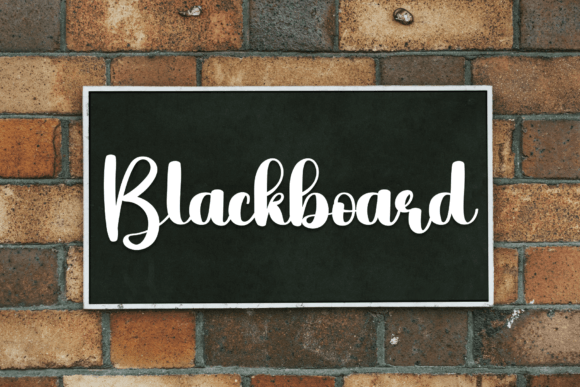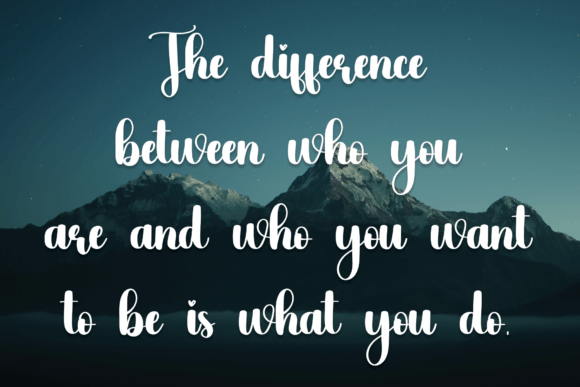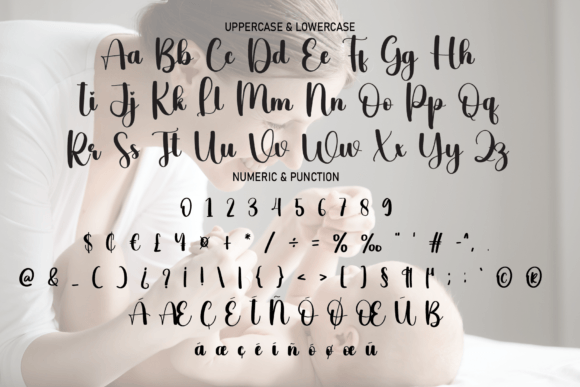
Introduction to Nanny Font
Nanny is a cool and casual handwritten font.
Whether you’re using it for crafts, digital design, presentations, or making greeting cards, this font has the potential to become your favorite go-to font, no matter the occasion .
Key Features of Nanny Font
Why Choose Nanny Font?
Nanny Font offers exceptional quality and versatility, making it a valuable addition to your design toolkit. Whether you’re creating for personal projects or commercial use, Nanny Font delivers professional results.